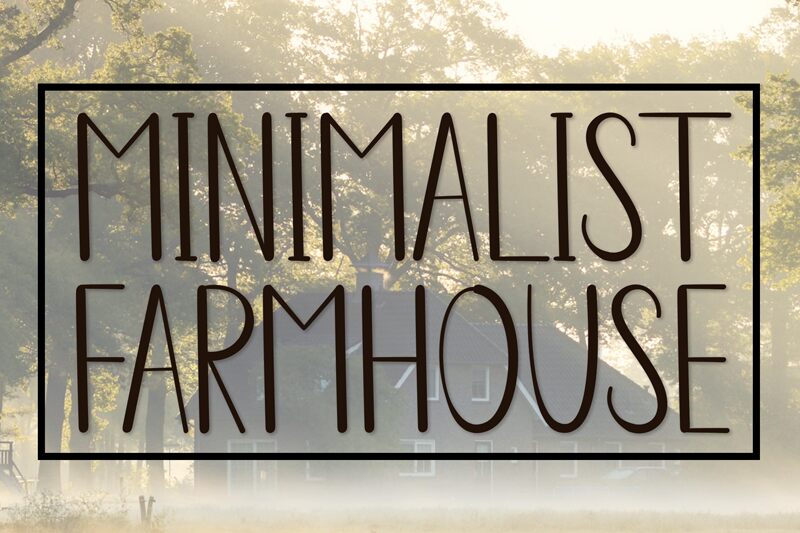
Minimalist Farmhouse
Minimalist Farmhouse, designed by Scratchones, is a font that captures the essence of simplicity with its handwritten appeal and semi-light weight. Its condensed width offers a cozy, understated elegance ideal for designs looking to embody warmth and personal touch.
Crafted with an artisanal flair, this typeface exudes a charming aesthetic, perfect for projects that require a touch of rustic sophistication. Whether it's branding for boutique businesses, packaging for organic products, or invitations for intimate gatherings, Minimalist Farmhouse brings a unique character to any creative canvas.
Embrace the allure of handcrafted design with Minimalist Farmhouse – where every letter tells a story of simplicity and style.